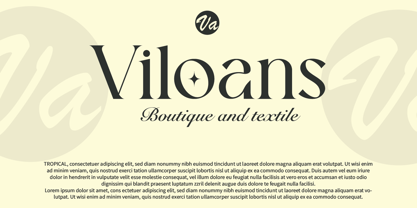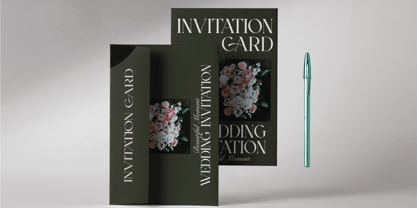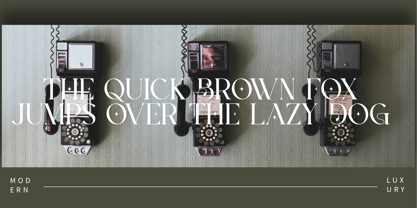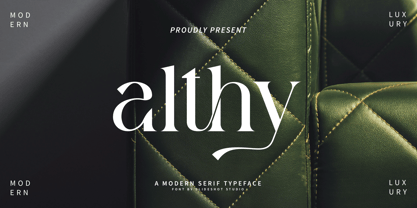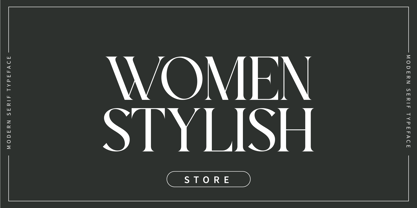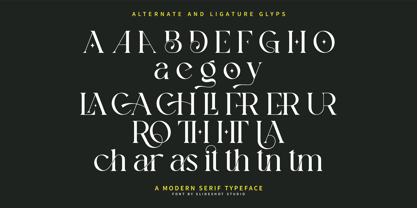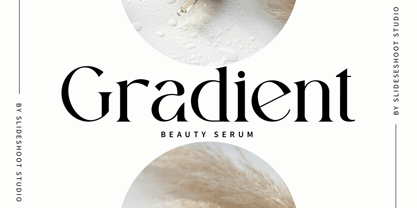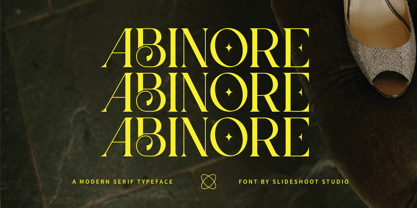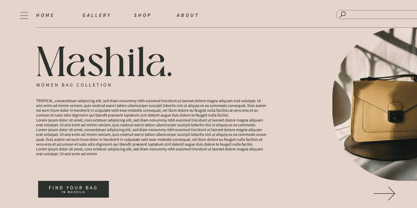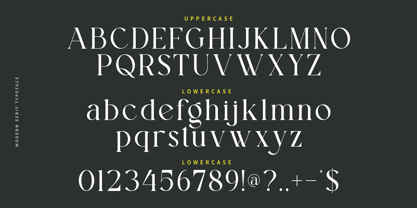
Althy
by Slide Shoot
The Althy Font Family was designed by Ahmad Riqi and published by Slide Shoot. Althy contains 1 styles. More about this family
Althy Serif is a modern and classy Serif font, he has a beautiful character. It is suitable to be combined with invitation card design, destroyer logo, film title, film name, business card, book title, name brand and various other designs. Althy Serif is a fine serif font that emits sophistication and elegance. Change and stubborn that makes this perfect font partner for any project.
Designers: Ahmad Riqi
Foundry: Slide Shoot